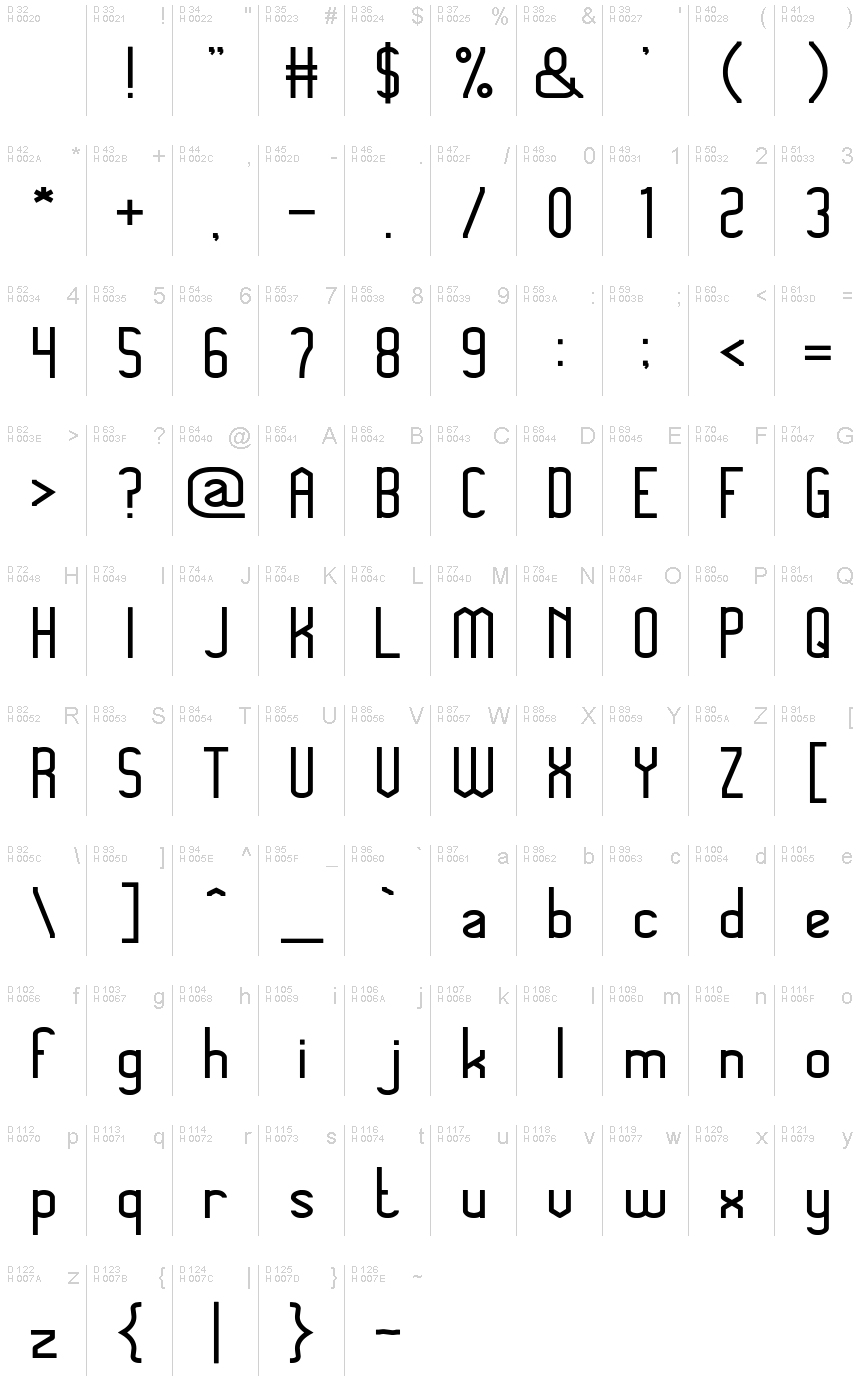
Megapolitan Jakarta
Megapolitan Jakarta, a captivating font created by Weknow, exudes a bold and striking presence. With its sleek lines and distinctive angular forms, this typeface radiates a sense of modern elegance and urban sophistication. The uppercase letters command attention, while the lowercase characters maintain a harmonious balance, creating a visually compelling typographic experience.
Megapolitan Jakarta's versatility shines through its ability to adapt seamlessly across a diverse range of design applications, from high-impact branding and editorial layouts to impactful signage and digital interfaces. Its strong personality and legibility make it a compelling choice for projects that seek to convey a sense of authority, modernity, and visual impact.